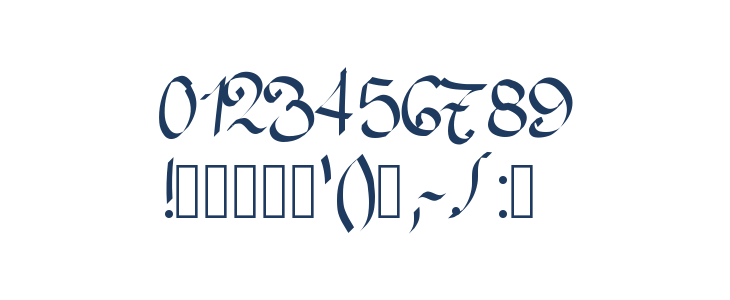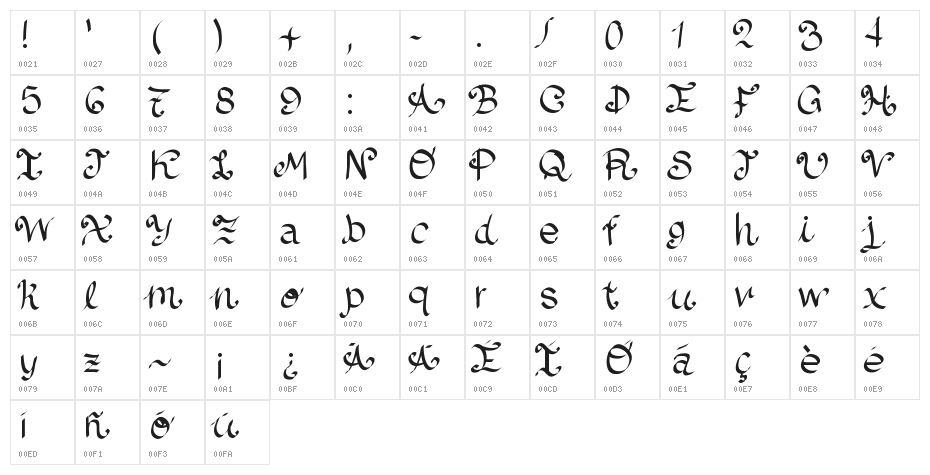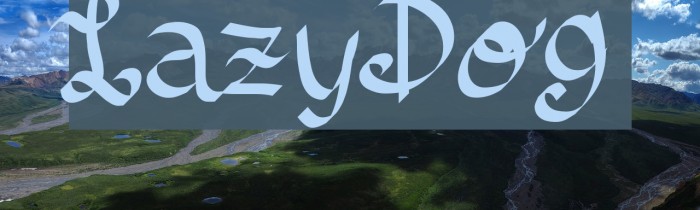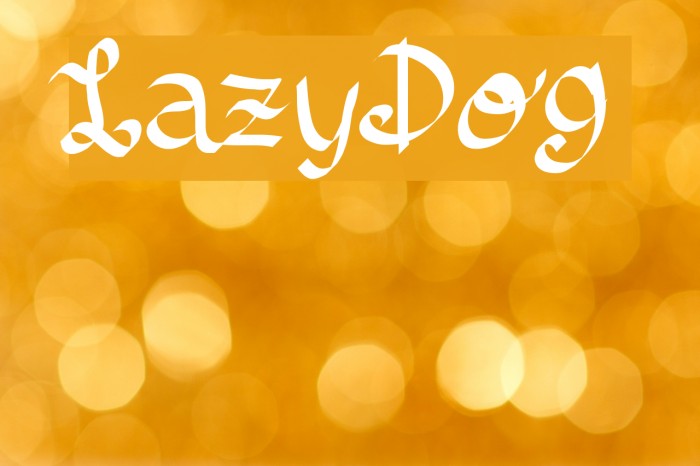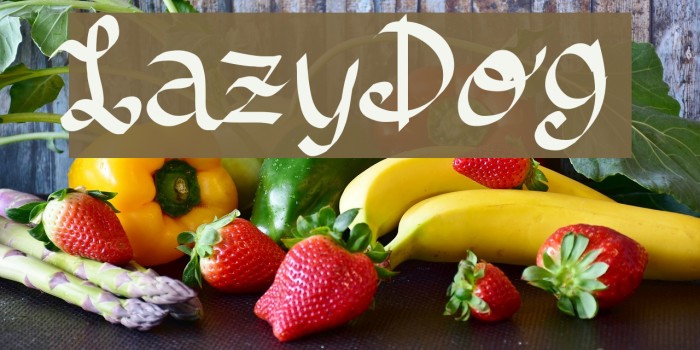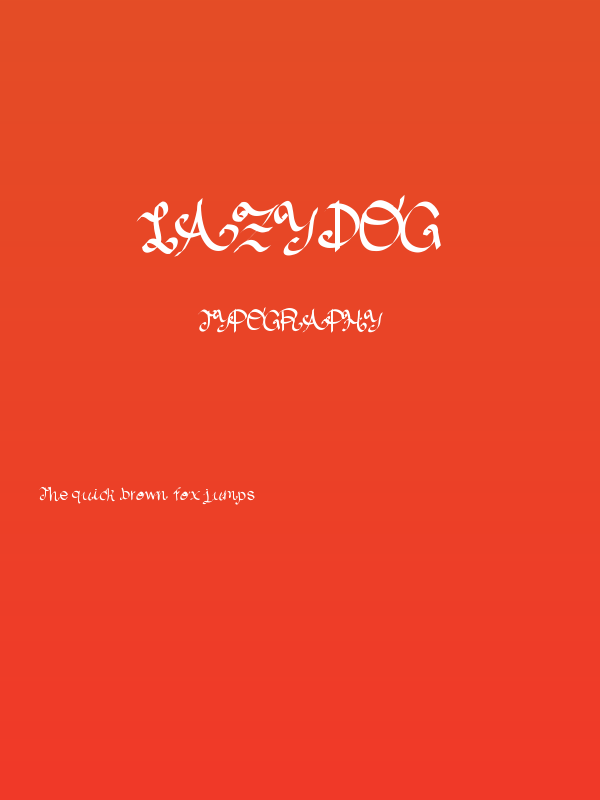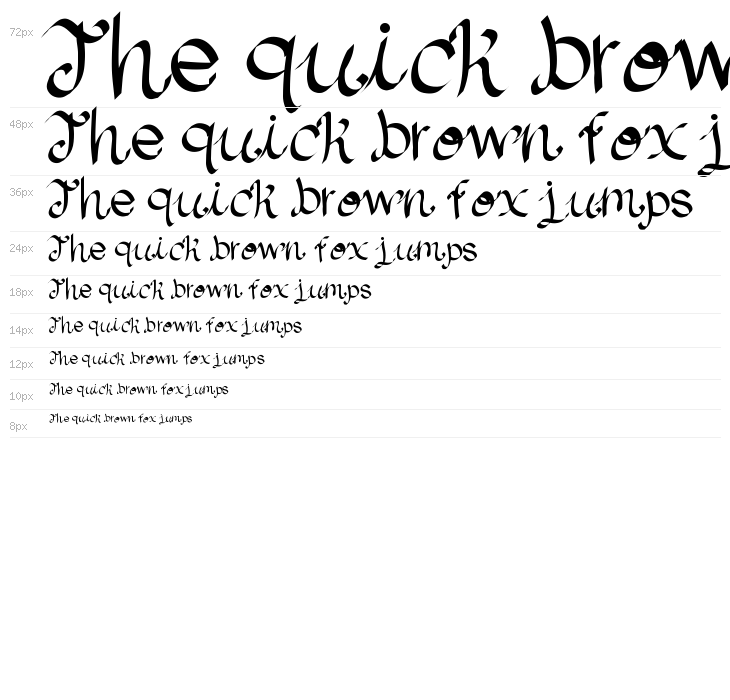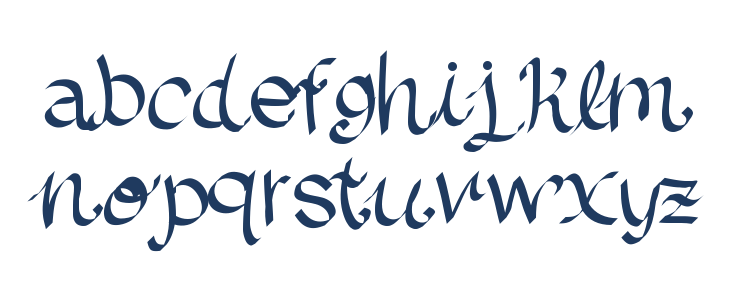
LazyDog Font
LazyDog Description
This font features a unique and artistic design, characterized by its flowing, calligraphic style. The uppercase letters exhibit a dramatic flair with intricate curves and loops, giving them a sense of movement and elegance. The lowercase letters maintain a consistent style, with smooth transitions and a slightly whimsical touch. Numbers are bold and maintain the same artistic flair, making them stand out. Special characters are creatively integrated, adding to the font's overall decorative appeal. This font is perfect for projects that require a touch of sophistication and creativity.
| Use Case | Logos, Invitations, Decorative Text |
| Proposed Projects | Ideal for wedding invitations, greeting cards, artistic posters, and branding materials that require a sophisticated touch. |